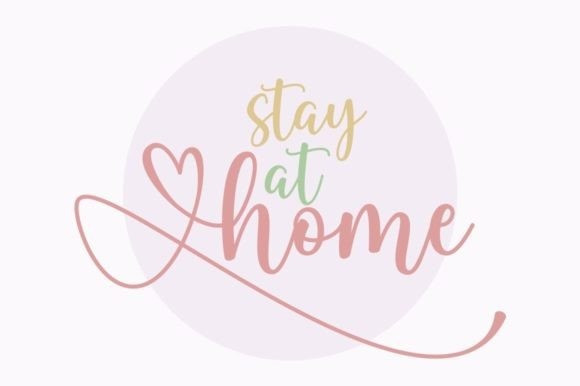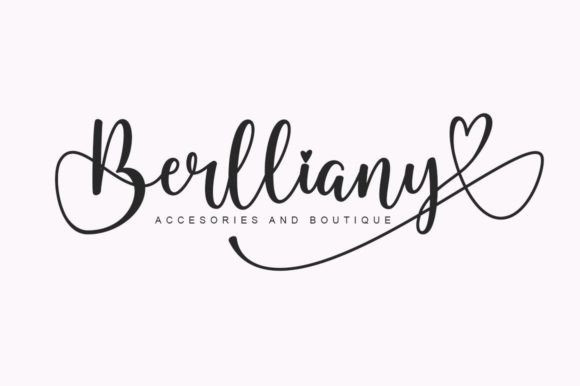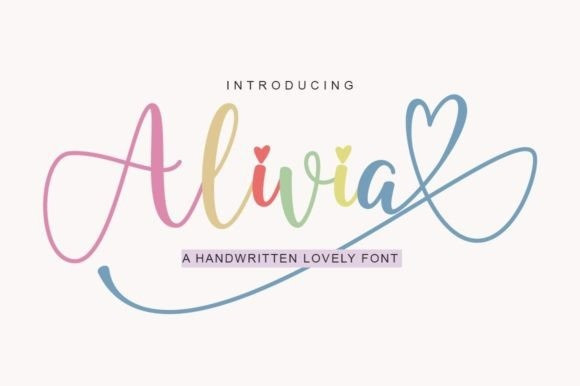
Alivia Script Font
Alivia Script Font, is a thin lettered and delicate script font. Add it confidently to your favorite creations and let yourself be amazed by the outcome generated. This font is PUA encoded which means you can access all of the amazing glyphs and ligatures with ease!